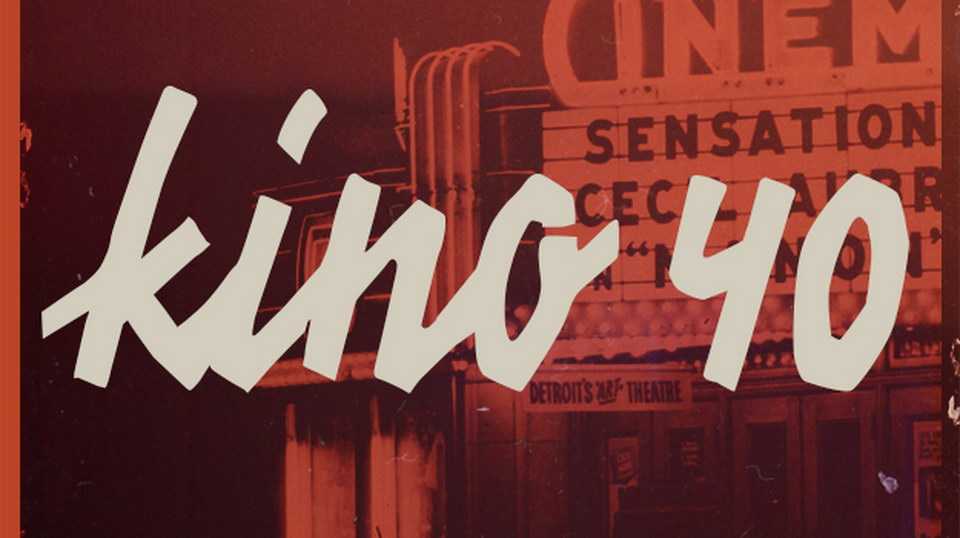
Download Kino 40 font, a vintage display typeface inspired by the old cinema handwrite style. Kino 40 perfectly fits for old style posters, movie and book covers, crafts and other creative projects.